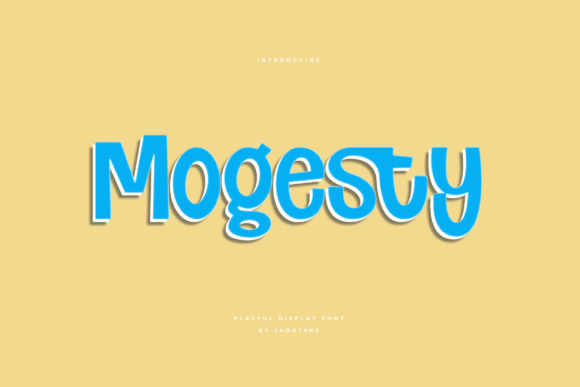
Introducing Mogesty Font, the ultimate choice for adding a touch of playfulness and personality to your designs! This captivating display font, created by jadatype, is the perfect companion for all your creative projects. Whether you're designing a t-shirt, crafting a unique brand identity, or expressing yourself on social media, Mogesty has got you covered.
With its unique and eye-catching style, Mogesty Font stands out from the crowd, making your designs truly remarkable. Its playful curves and elegant strokes bring a sense of joy and liveliness to any project. Say goodbye to boring and plain fonts, and say hello to the world of endless creativity!
Are you looking to create a stunning family name sign that captures the essence of your loved ones? Look no further! Mogesty Font is the best font for family name signs, allowing you to showcase your family's identity with flair. Its captivating and emotive design will make your family name sign a true masterpiece, reflecting the love and warmth that binds your family together.
But Mogesty Font is not limited to just family name signs. Its versatility knows no bounds. Let your imagination run wild as you explore the countless possibilities this font offers. From eye-catching logos to attention-grabbing social media posts, Mogesty Font is your go-to choice for making a lasting impression.
Unlock the power of emotion with Mogesty Font. Its captivating style adds a touch of personality to your designs, evoking feelings of joy, excitement, and curiosity. Your audience won't be able to resist the magnetic pull of your creations, as Mogesty Font speaks directly to their hearts.
Don't settle for mediocre fonts that fail to capture the essence of your brand or message. Mogesty Font empowers you to stand out in a sea of ordinary designs, allowing you to leave a lasting impression on your audience. Whether you're a seasoned designer or a passionate amateur, Mogesty Font is your secret weapon for creating captivating and unforgettable visuals.